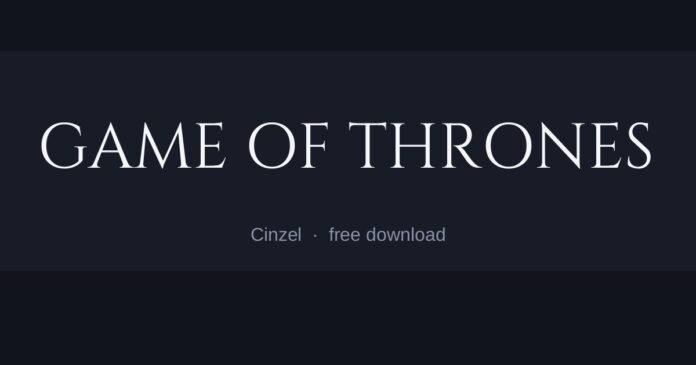
Game of Thrones Font
What font is the Game of Thrones logo?
The title card uses custom lettering built on a Trajan-style engraved capital — the Roman inscriptional letterform that has been the default for film titles for thirty years.
Because the reference is a historical letterform rather than a proprietary typeface, free alternatives get unusually close here.
The fonts here
• Cinzel is the closest — a direct Trajan-style engraved capital, variable so you can dial the weight up for a title.
• IM Fell English is rougher and older, based on seventeenth-century types, good when you want the map-and-parchment feel.
• Kingsbridge Rg is a cleaner modern serif, useful for body text that needs to sit under the title without competing.
Where the style comes from
Inscriptional Roman capitals were cut into stone, which is why they have flared stems, sharp triangular serifs and no lowercase. Those constraints produce letters that read as permanent and official — exactly the association a series about dynasties wants.
The show’s version adds a slight wear to the edges and sets the words very wide apart, which does more for the effect than the letterforms themselves.
Setting it well
• Use capitals only — a Trajan-style face has no real lowercase, and faking one breaks the illusion immediately
• Open the letter-spacing well beyond normal; the title card is spaced almost to the width of the frame
• Warm grey or bronze on near-black looks closer than pure white
Is this the exact font used for Game of Thrones?
Not exactly. The original lettering was custom drawn or is not publicly licensed, so the fonts here are close recreations. Cinzel is the nearest match we have found.